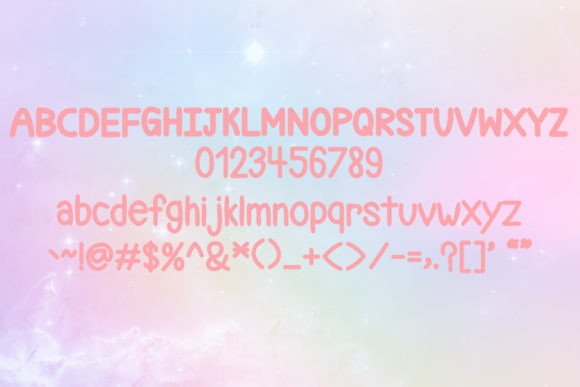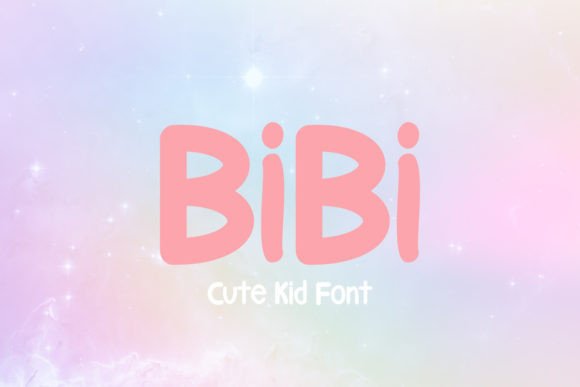
Bibi Font: The Perfect Addition to Your Design Arsenal
Are you a designer or crafter looking for a font that can add a touch of playfulness and fun to your work? Look no further than Bibi Font! This adorable curved and simple display font is perfect for projects related to kids, and can instantly make your sheets or work come alive.
What is Bibi Font?
Bibi Font is a unique and charming typeface that boasts a curved and simple design. Its clean lines and rounded edges give it a friendly and approachable feel, making it perfect for projects that require a playful touch. Whether you’re working on a children’s book, a craft project, or a marketing campaign aimed at kids, Bibi Font is sure to delight.
Key Features of Bibi Font
• Curved and Simple Design: Bibi Font features a beautiful curved design that is both elegant and easy to read.
• Cute and Playful: The font’s playful and charming design makes it perfect for projects related to kids.
• Display Font: Bibi Font is a display font, making it perfect for headlines, titles, and other display purposes.
• Easy to Read: Despite its playful design, Bibi Font is easy to read, even at smaller sizes.
Why Use Bibi Font?
So why should you use Bibi Font for your next project? Here are just a few reasons:
• Adds a Touch of Whimsy: Bibi Font can add a touch of whimsy and fun to your project, making it perfect for kids-related work.
• Versatile: Bibi Font can be used for a wide range of projects, from children’s books to craft projects, and even marketing campaigns.
• Easy to Pair: Bibi Font is easy to pair with other fonts, making it perfect for use in combination with other typefaces.
• High-Quality: Bibi Font is a high-quality font that is designed to deliver exceptional results.
How to Use Bibi Font
Using Bibi Font is easy! Here are a few tips to get you started:
• Use it for Headlines: Bibi Font is perfect for use in headlines and titles, where its playful design can really shine.
• Pair it with Other Fonts: Bibi Font pairs well with other fonts, so don’t be afraid to get creative and experiment with different combinations.
• Use it for Kids-Related Projects: Bibi Font is perfect for kids-related projects, such as children’s books, craft projects, and more.
In conclusion, Bibi Font is a charming and playful font that is perfect for designers and crafters looking to add a touch of fun to their work. Its curved and simple design makes it easy to read, while its playful and whimsical feel makes it perfect for kids-related projects. Whether you’re working on a children’s book, a craft project, or a marketing campaign, Bibi Font is sure to delight. So why not give it a try and see the difference it can make in your work?
• Experiment with Different Sizes: Bibi Font looks great at a variety of sizes, so don’t be afraid to experiment and find the perfect size for your project.
• Use it in Combination with Images: Bibi Font looks great in combination with images, so consider using it in conjunction with photos or illustrations.
• Get Creative with Colors: Bibi Font looks great in a variety of colors, so don’t be afraid to get creative and experiment with different color schemes.
With its playful and charming design, Bibi Font is sure to become a favorite in your design arsenal. So why not give it a try and see the difference it can make in your work?